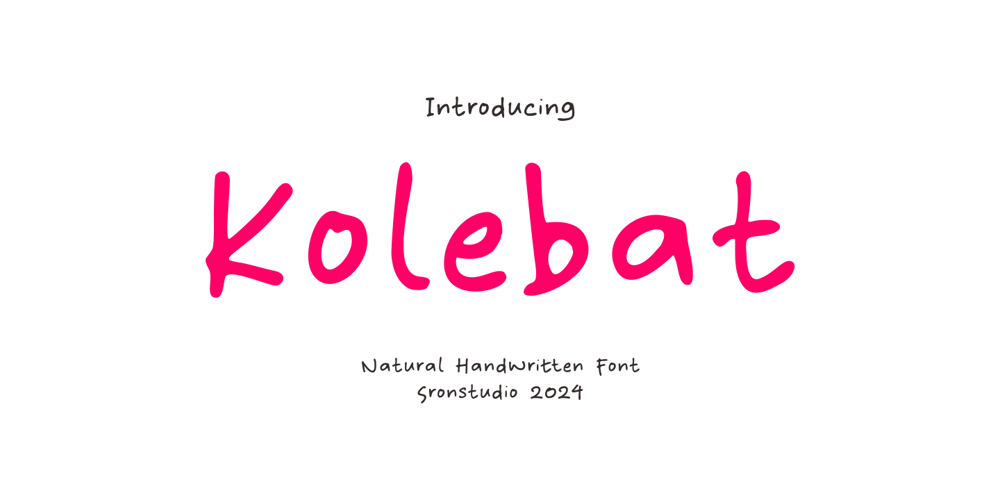
Kolebat Font Family was designed by Muhamad Yusron Billah and published by Sronstudio. Kolebat contains 1 styles and family package options. Introducing “Kolebat,” a whimsical handwritten scribble font that brings a playful and informal touch to your designs. With its spontaneous and lively strokes, “Kolebat” perfectly captures the essence of free-spirited creativity. Ideal for personal projects, greeting cards, children’s books, and casual branding, this font adds a unique and charming character to any design. Let “Kolebat” infuse your work with a sense of fun and individuality, making each piece truly stand out.Included:- Ligatures- Numeral & Punctuation- PUA Encoded- Multilingual support- Simple Installation- Work both on Mac and WindowsThank you very much 🙂